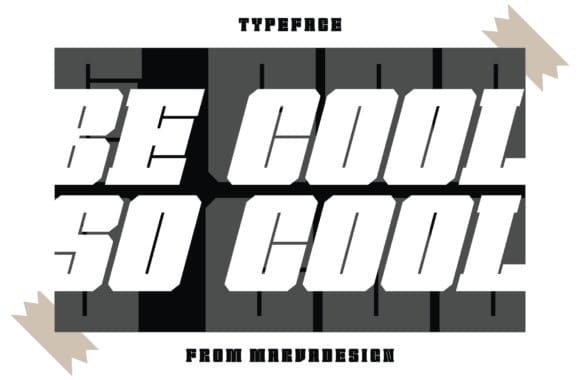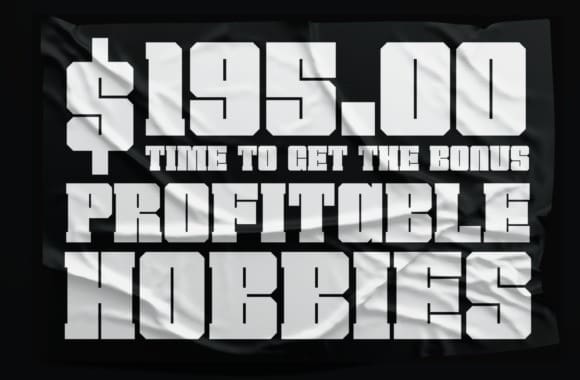
Monaz Font
Monaz Font – Modern Font is a bold and authentic display font. The font is suitable for any branding project like logo, Template Design, Product, and many more. outstanding in a wide range of contexts.
Classification: Display Fonts, Slab Serif Fonts